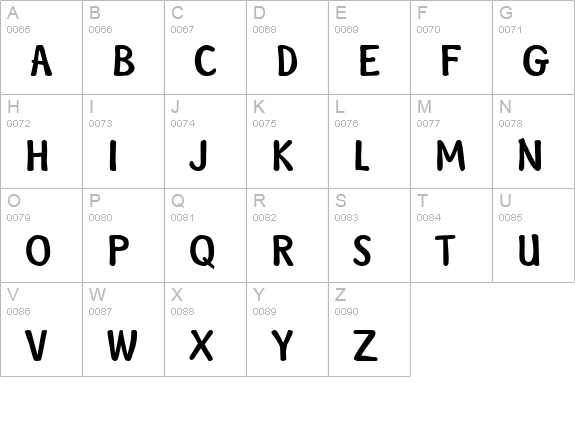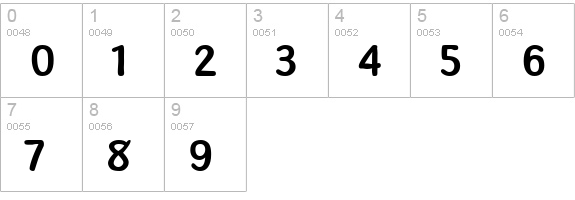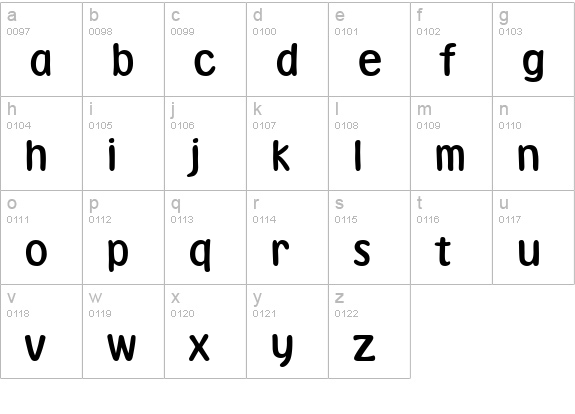
Disney Simple Font Details
The Disney Simple font is a whimsical and charming typeface that captures the magic and wonder of the Disney universe. With its playful and friendly appearance, this font is perfect for adding a touch of nostalgia to any design project. Whether you're creating invitations, posters, or social media graphics, the Disney Simple font is sure to delight and enchant viewers of all ages. Best of all, the Disney Simple font is completely free to download at FontsMarket.com. So go ahead and add a sprinkle of Disney magic to your creations with this delightful font that will bring a smile to everyone's face.